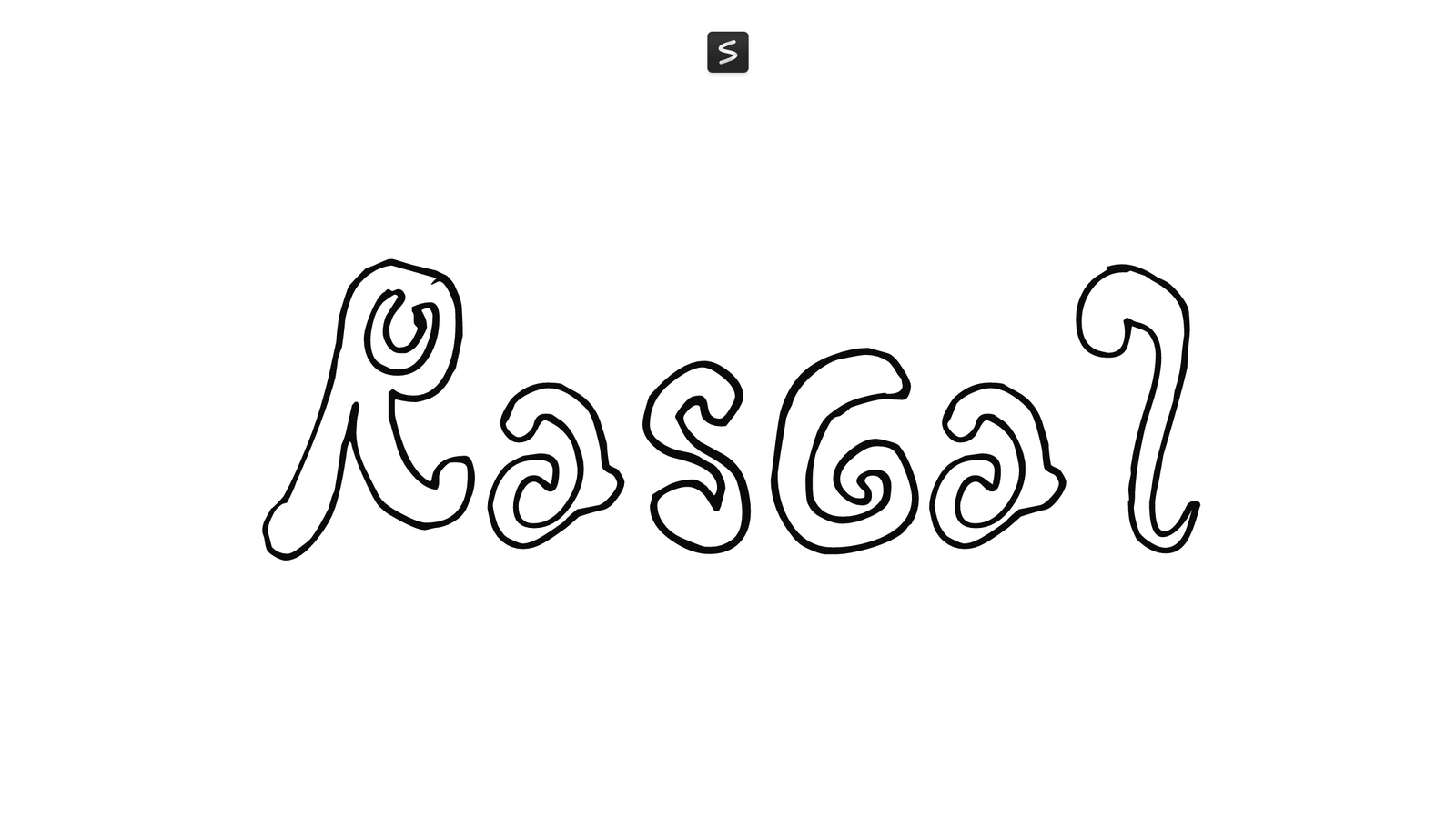
Rascal is an outline display font by Marianfudge with a deliberately wobbly, hand-drawn character. Its double-line construction and organic irregularity give it genuine charm without feeling forced. The letterforms wobble just enough to feel alive, making it work well for projects that need visual warmth and a touch of levity.
The outline style and intentional unevenness make Rascal feel approachable rather than polished. It works particularly well for posters, book covers, zine headers, indie game UI, packaging, and branding projects where a bit of personality goes a long way. The font reads clearly even with its quirks, and the hand-drawn quality adds character without sacrificing legibility.
If you want something that feels crafted and unpretentious, Rascal brings that quality directly to the page.